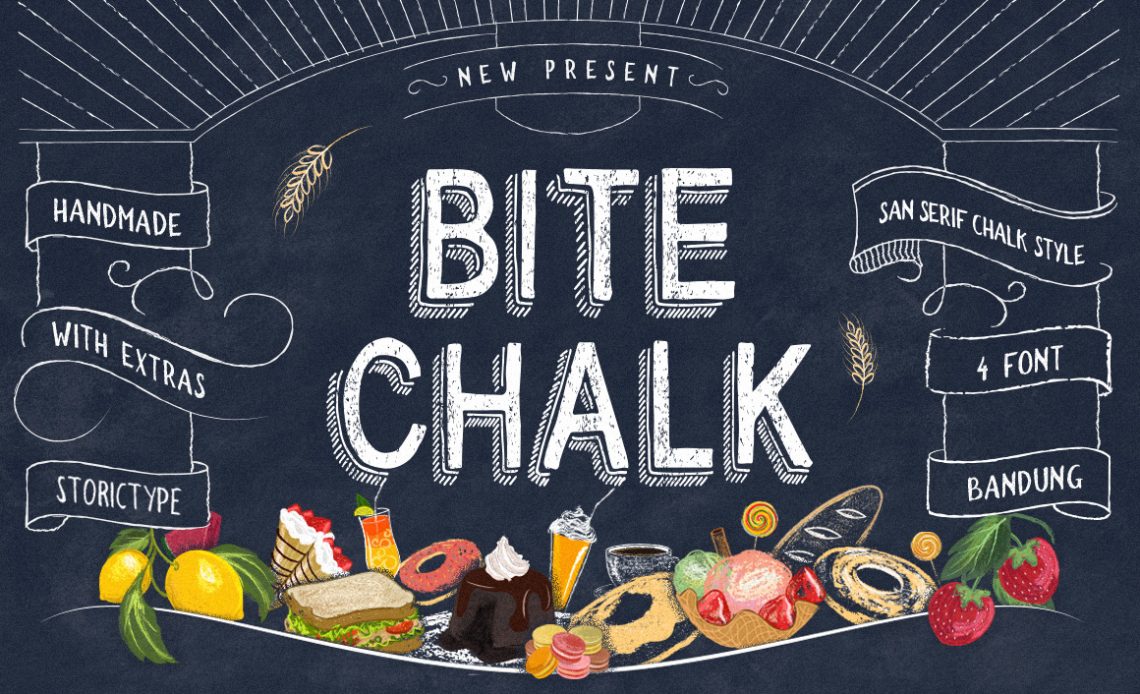
Introducing BiteChalk Font, a jaw-dropping display font created by storictype! Brace yourself for a "Wow!" experience as this textured font takes your designs to new heights. With its captivating charm and ornamental feel, BiteChalk Font is the perfect choice for anyone seeking to make their chalk-oriented projects truly stand out.
Imagine the impact this font will have on your designs. Its unique texture adds depth and character, giving your creations an authentic and eye-catching appeal. Whether you're designing a menu board for a trendy café or creating captivating signage for an event, BiteChalk Font will leave a lasting impression on your audience.
Not only does BiteChalk Font excel in style, but it also excels in readability. Say goodbye to fonts that sacrifice legibility for aesthetics. This font strikes the perfect balance, ensuring that your message is easily conveyed and effortlessly understood. Let your words flow smoothly and effortlessly, captivating your audience's attention.
But that's not all - BiteChalk Font is incredibly versatile. It can effortlessly adapt to various design projects, allowing you to explore endless creative possibilities. From posters and invitations to social media graphics and branding materials, this font is your secret weapon for creating visually stunning and impactful content.